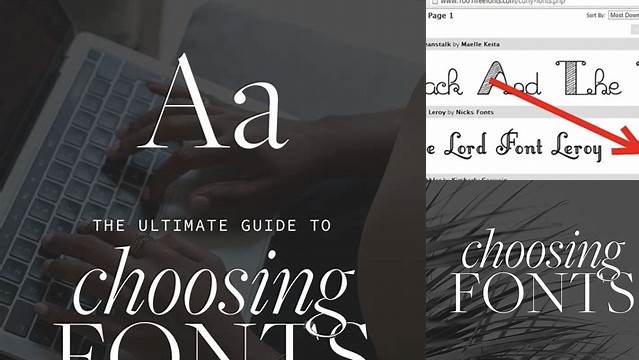
Free Fonts: Best Websites & How To Get Them
Are you on the hunt for the perfect typeface to jazz up your designs, spice up your website, or add a dash of flair to your documents? Look no further, because we're diving headfirst into the awesome world of websites for downloading free fonts! Yep, you heard that right. We're talking about a treasure trove of typography, all available without spending a single penny. From sleek and modern sans-serifs to elegant and classic serifs, and everything in between, we'll explore the best platforms to get your hands on these digital goodies. So, buckle up, design enthusiasts, because we're about to embark on a font-tastic adventure!
H2: Unveiling the Best Free Font Websites: A Comprehensive Overview
Alright, guys, let's get down to brass tacks: where exactly do you find these amazing websites for downloading free fonts? The internet is a vast ocean, but don't worry, I've done the hard work for you and compiled a list of the absolute best places to start your font quest. First up, we have Google Fonts. This is a total powerhouse, offering a huge library of open-source fonts that are super easy to integrate into your projects. Whether you're a seasoned web developer or just starting out, Google Fonts is a must-know resource. Next, we've got Font Squirrel. This site is legendary for its carefully curated collection of high-quality, free fonts. They also have a handy font identifier tool, which is a lifesaver when you're trying to track down a specific font you've seen somewhere. Then, there's DaFont. Now, DaFont is a bit of a mixed bag – you'll find tons of fonts here, but you need to be extra careful about the licensing. Always double-check the terms of use before downloading and using a font from this site. Finally, don't forget about BeFonts and FontSpace. These are other excellent resources, each with their own unique selection of free fonts. The key is to explore these sites, see what they offer, and find the ones that best suit your needs. Remember, when you're using websites for downloading free fonts, it's crucial to understand the licensing. Most free fonts come with a license that dictates how you can use them (commercial, personal, etc.). Always read the license agreement before you download and use a font to avoid any legal issues. I'll talk more about this later, but for now, just keep it in mind. Also, one pro-tip is to keep an eye on the popularity of the fonts. Often, the most downloaded fonts are a great start and provide the foundation for creating great content. So, let's dive in further and explore some of the most popular and useful websites for downloading free fonts.
H3: Google Fonts: The King of Free Font Repositories
When it comes to websites for downloading free fonts, Google Fonts is the reigning champion. It's a massive, constantly updated library of fonts that are all open-source and completely free to use. This means you can use them for personal and commercial projects without any worries. Google Fonts offers a wide variety of typefaces, from classic serifs and clean sans-serifs to more playful and unique display fonts. One of the best things about Google Fonts is how easy it is to use. You can simply browse the website, select the fonts you like, and then download them or embed them directly into your website using a simple code snippet. They also provide great documentation and support to help you get started. Plus, the fonts are optimized for web use, so they'll load quickly and look great on any device. The search functionality is also fantastic. You can filter fonts by various criteria, such as style, thickness, and language support. This makes it super easy to find the perfect font for your specific project. Google Fonts is a go-to resource for web designers, graphic designers, and anyone who needs free fonts. Also, it supports a wide range of languages, making it a versatile tool for both international and local projects. Whether you're designing a website, creating a presentation, or just working on a personal project, Google Fonts has something for everyone. The platform is constantly evolving, with new fonts being added regularly, so there's always something new to discover. The user-friendly interface and extensive collection make it a staple for anyone looking for fonts, and it's no wonder Google Fonts has become a cornerstone in the world of typography.
H3: Font Squirrel: Curated Excellence in Free Fonts
Font Squirrel is another top contender in the world of websites for downloading free fonts. This site is known for its carefully curated collection of high-quality, free fonts. Unlike some other sites that have a massive, sometimes overwhelming selection, Font Squirrel focuses on quality over quantity. They take the time to review and vet each font, ensuring that you get access to only the best and most usable typefaces. One of the things that sets Font Squirrel apart is its dedication to providing fonts that are free for commercial use. They understand that many users need fonts for business projects, and they make it easy to find fonts that meet those requirements. This is a huge plus for small business owners, entrepreneurs, and anyone else who needs fonts for their marketing materials or other commercial purposes. In addition to its impressive font library, Font Squirrel also offers some handy tools. For example, they have a font identifier tool that lets you upload an image of a font and try to identify it. This is incredibly useful if you see a font you like but don't know its name. They also provide a font generator that helps you create custom web fonts, which can be optimized for web use. The website is user-friendly, and you can easily filter fonts by style, license, and other criteria. This makes it easy to find the perfect font for your project. Font Squirrel is more than just a place to download fonts; it's a valuable resource for anyone who cares about typography. It’s a trusted source for designers, offering a selection that combines both aesthetics and practicality. The site also features a blog with tutorials and articles about font design, which helps users to develop a deeper understanding of typography.
H2: Font Pairing: Creating Harmonious Typography
Okay, now that you've got your font collection growing, let's talk about making those fonts work together like a dream team! We're diving into the art of font pairing. This is the process of selecting two or more fonts that complement each other and create a visually appealing and harmonious design. Choosing the right font pairings can elevate your designs from good to amazing. But where do you start? Well, the first rule of thumb is to consider the purpose of your design. Are you creating a website, a poster, a logo, or something else? The purpose will guide you. Think about contrast. Pairing a bold headline font with a more subtle body font can create a great contrast. Also, consider the fonts' styles. Do you want a modern look, a classic feel, or something else? You can use pairing tools that let you experiment with different font combinations and see how they look together. One of the most important things is to find a balance between the fonts. Don't use fonts that are too similar or that clash with each other. You can always look at examples. Browse websites and design magazines, and find examples of typography that you like. Pay attention to the font pairings that are used and use them as inspiration. Also, don't be afraid to experiment and find what looks best for your project. The right font pairing can create a more visually appealing and effective design. With a little practice, you'll be a font-pairing pro in no time. And remember, good font pairings are essential for great design. You are going to be getting those amazing fonts from websites for downloading free fonts, and then with these font pairing tips, you will be set to create anything you want.
H3: Serif and Sans-Serif Pairings: A Timeless Combination
One of the most classic and effective font pairing strategies involves combining serif and sans-serif fonts. This is a timeless combination that offers a beautiful balance of tradition and modernity. Serifs are fonts with small strokes or